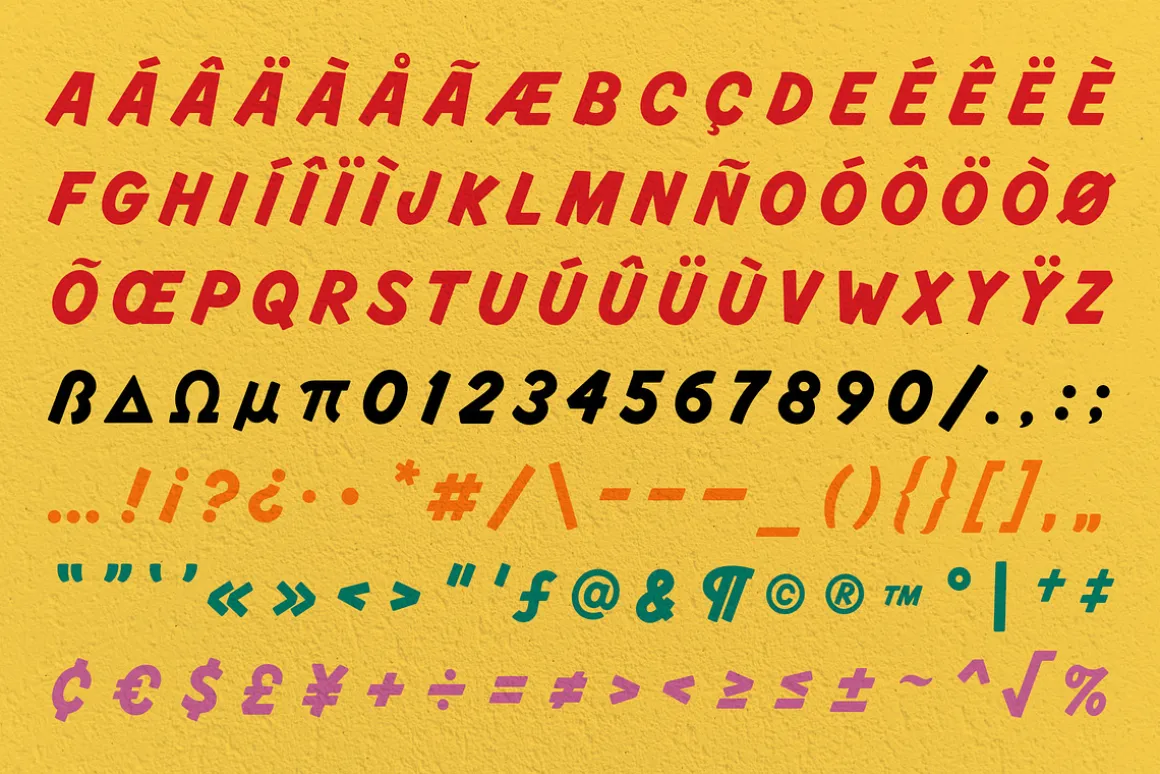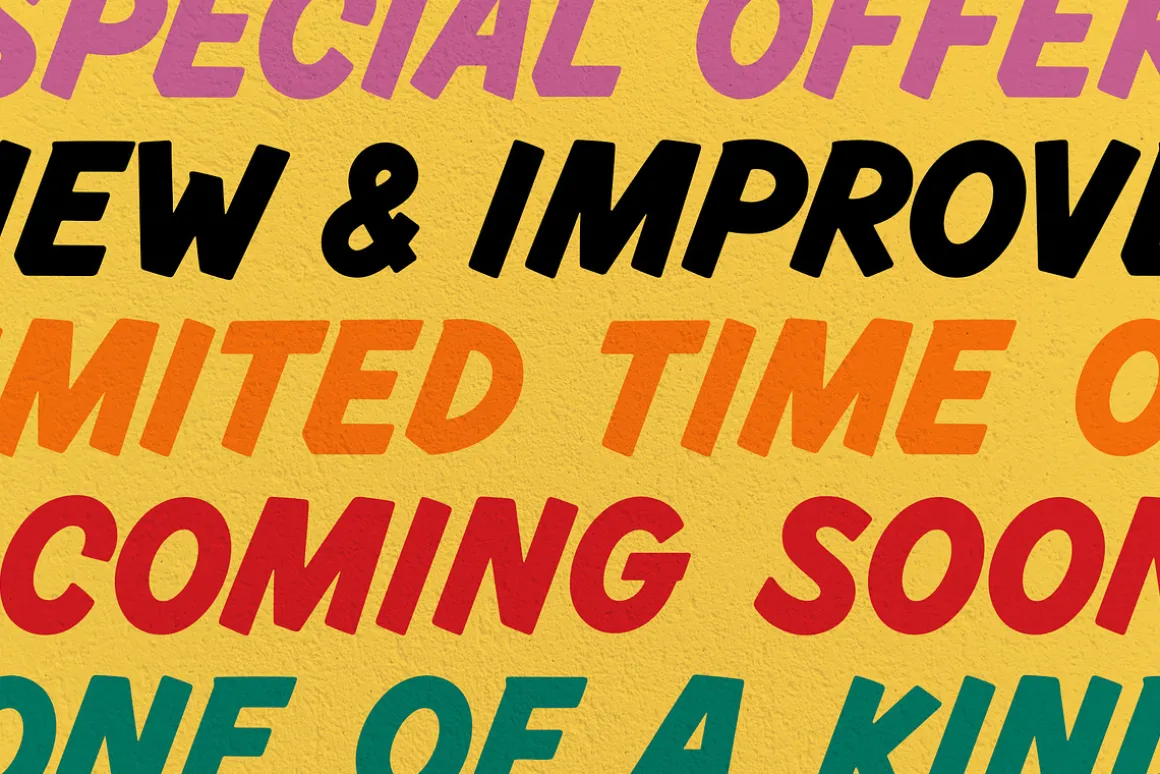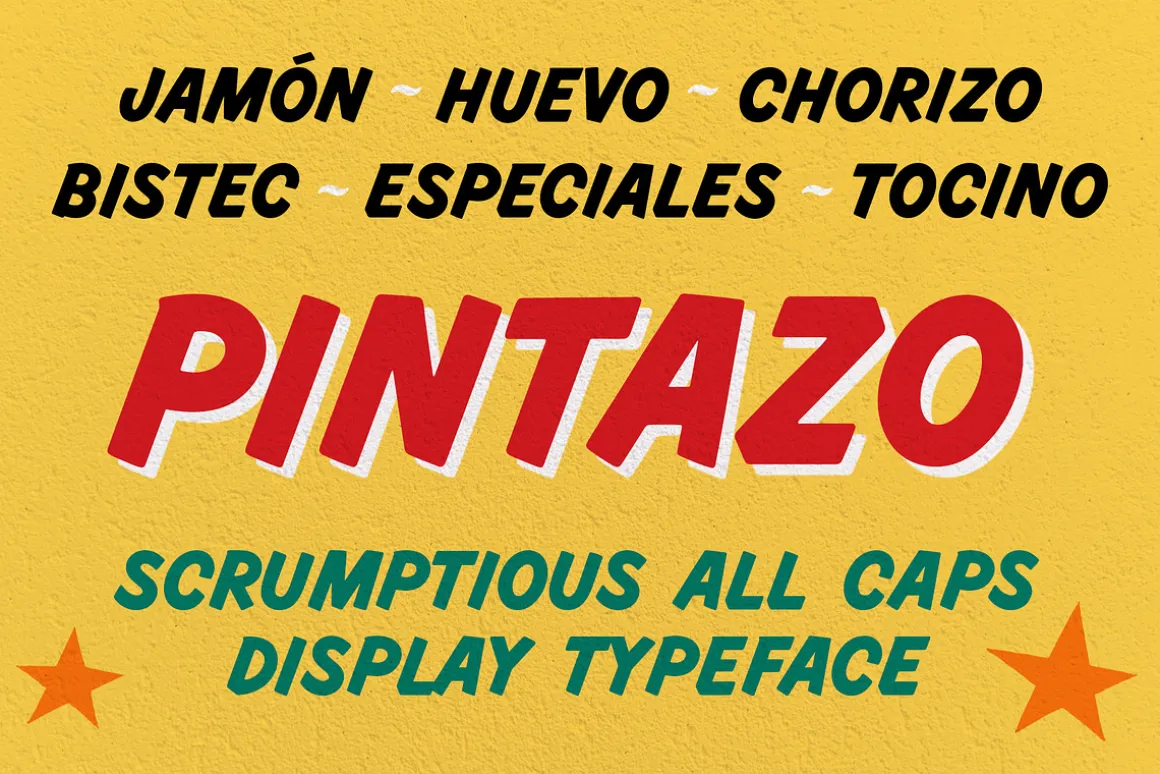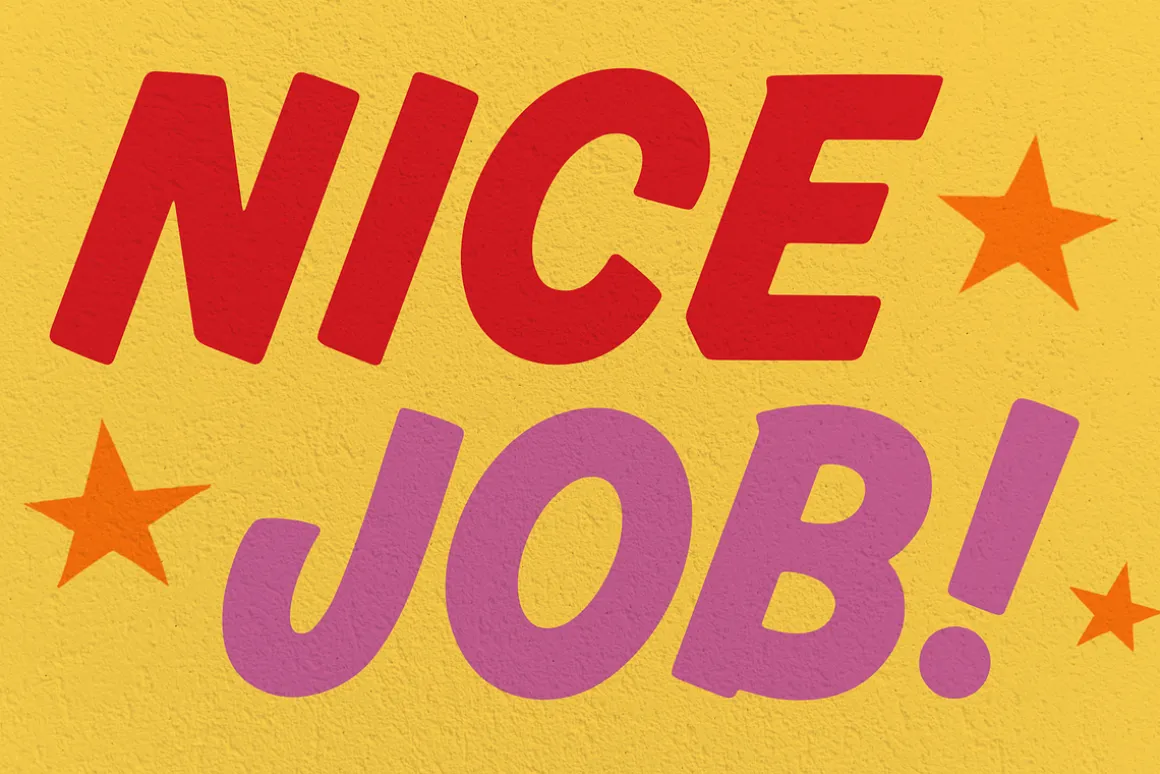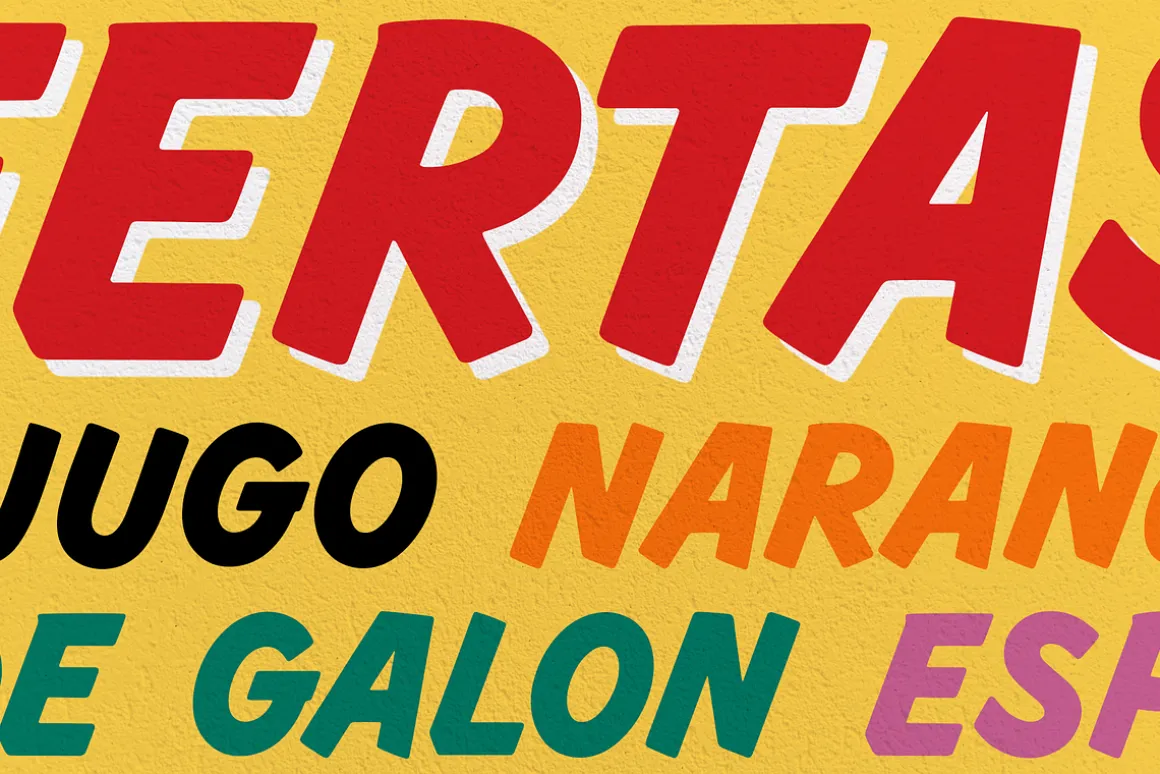
Bring a touch of classic craftsmanship to your designs with Pintazo! Meticulously crafted to emulate the fluid strokes and bold character of traditional sign painting, this font is perfect for adding a personal, handcrafted feel to any project. Whether you’re creating eye-catching posters, elegant invitations, striking logos, or nostalgic packaging, Pintazo adapts beautifully to a wide range of applications. Includes uppercase letters, numerals, punctuation, and all the special characters you need for your next design.